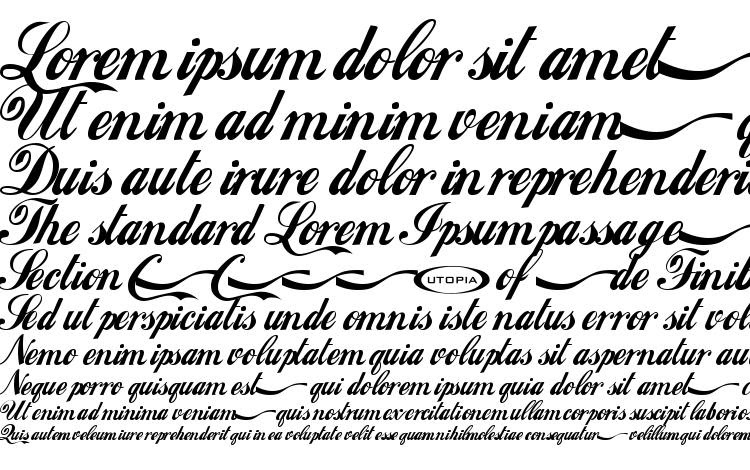
Loki Cola Font Creator
Below you can download free loki cola font. There are 2 fonts that contain many similarities, including spencerian script and loki cola font.
Loki cola font creator. Choose logo > edit text > customize > done! Loki cola is a windows true type font you can download for free. Brandname, classic, famous, calligraphy, script, flourish
Votes, rated based on results identification. Initially the font is used for the company’s logo was identified as the spencerian font, i.e. Although we have the largest database of fonts, the search for a font from an image gets mixed results like the image above.
Font meme is a fonts & typography resource. Thousands of designers (famous or not) use the image font detection system to find a font or similar free fonts from an image. Besides, loki cola font is also considered to be very similar to the font which is used for the coca cola logo.
Loki cola by utopia is another similar font and it has more swash options, you can view its character and download it here. The lettering of the logotype is very similar to a font named coca cola ii and you can download the font for free here. Download the loki cola font by utopia fonts.
Download the loki cola font for free or use it to generate a fancy logo using the custom graphics generator. This is a preview image.to get your logo, click the next button. Coca cola ii font, and it was very popular in the us from 1850 to 1925.
The fonts in use section features posts about fonts used in logos, films, tv shows, video games, books and more; Brandname, classic, famous, calligraphy, script, flourish This is a script font and it’s designed and shared by utopia.
For more swashes, you can opt for loki cola. This is a preview image.to get your logo, click the next button. Choose logo > edit text > customize > done!